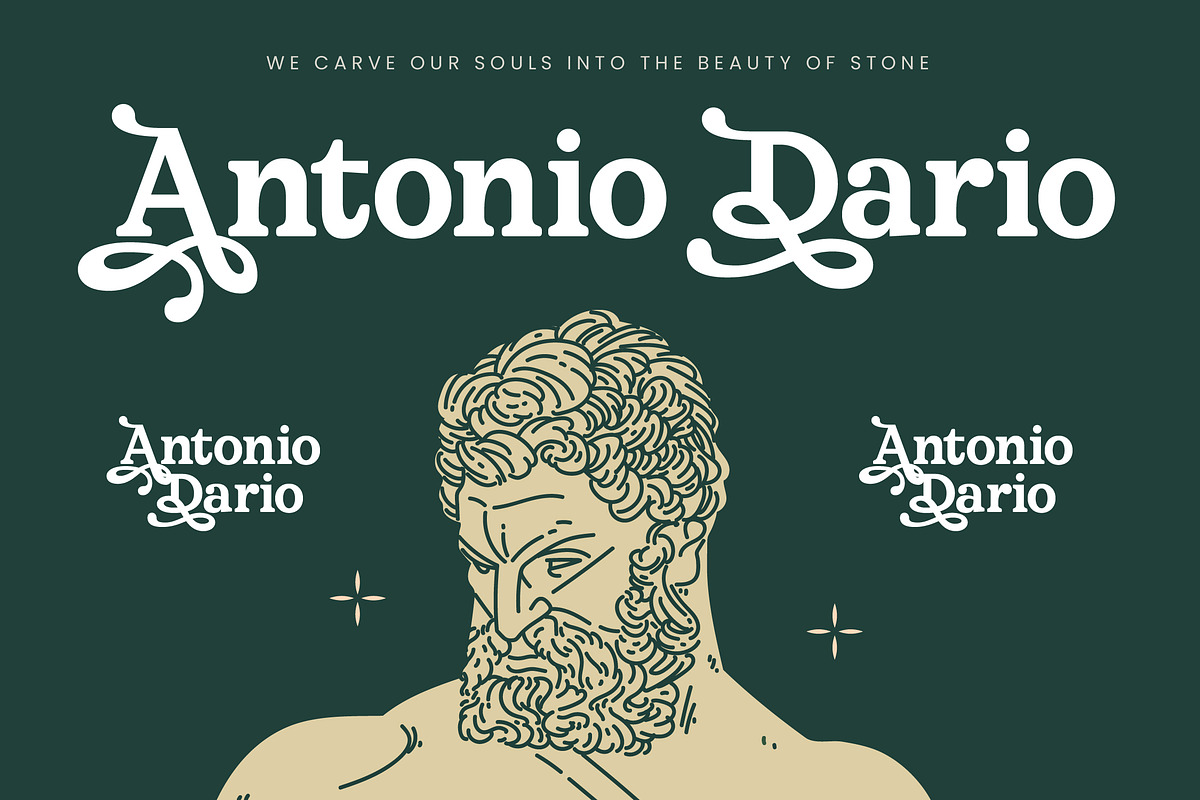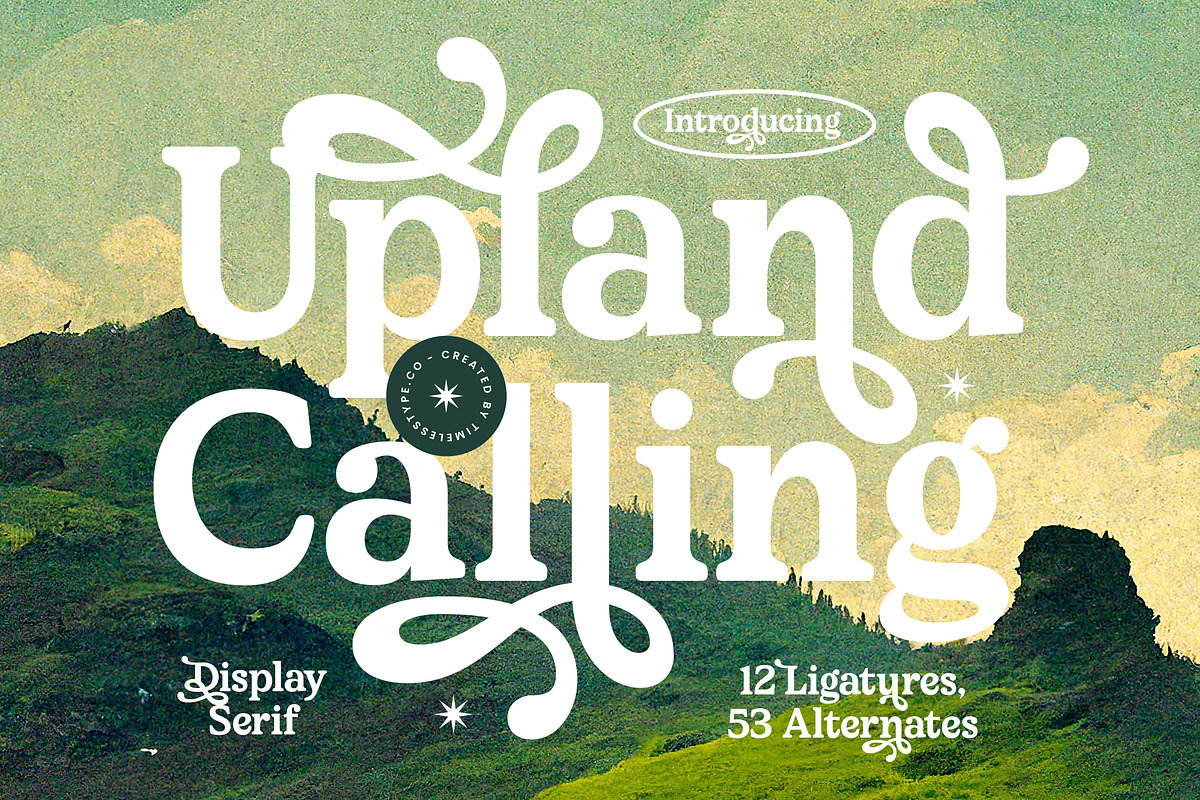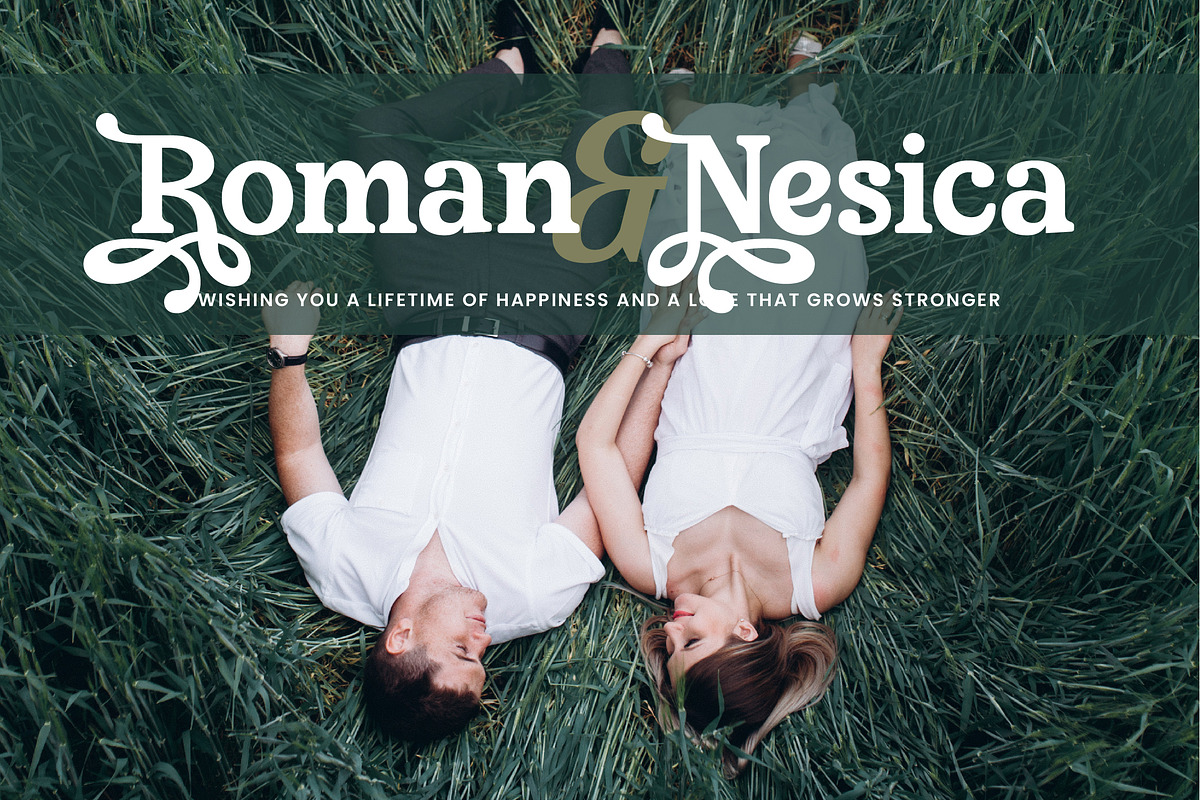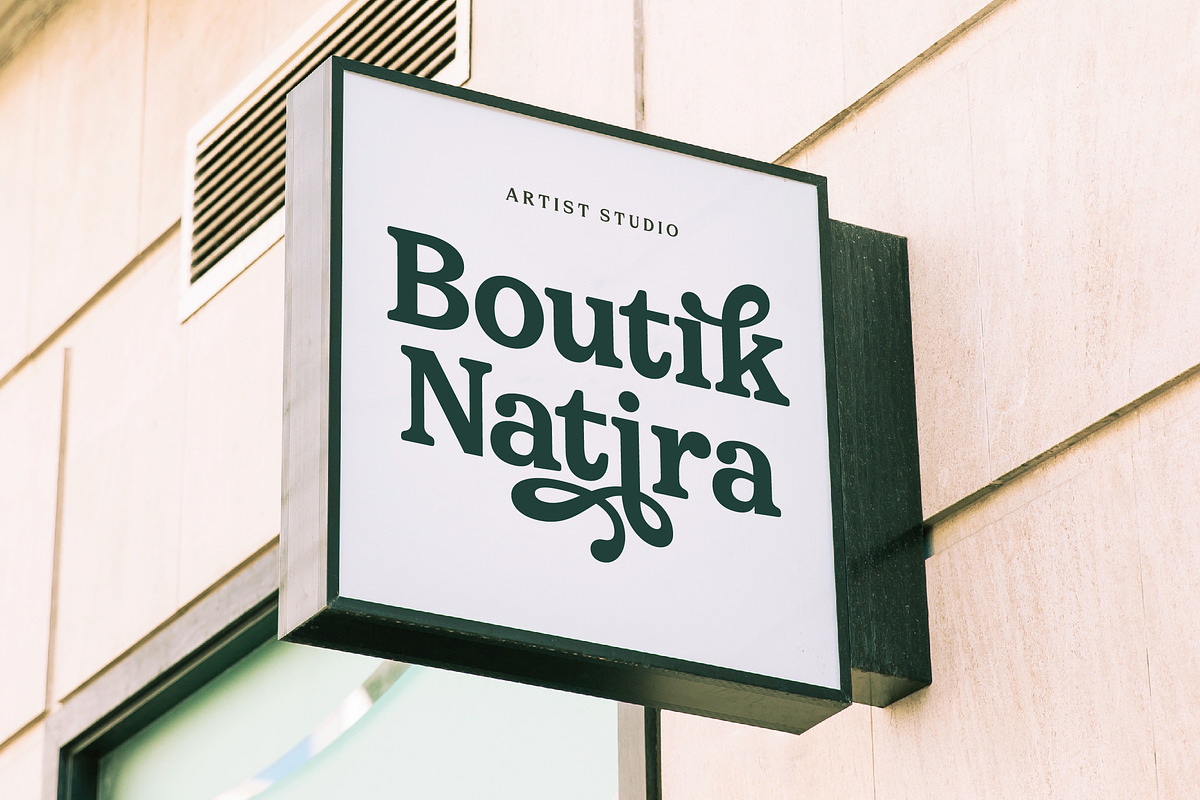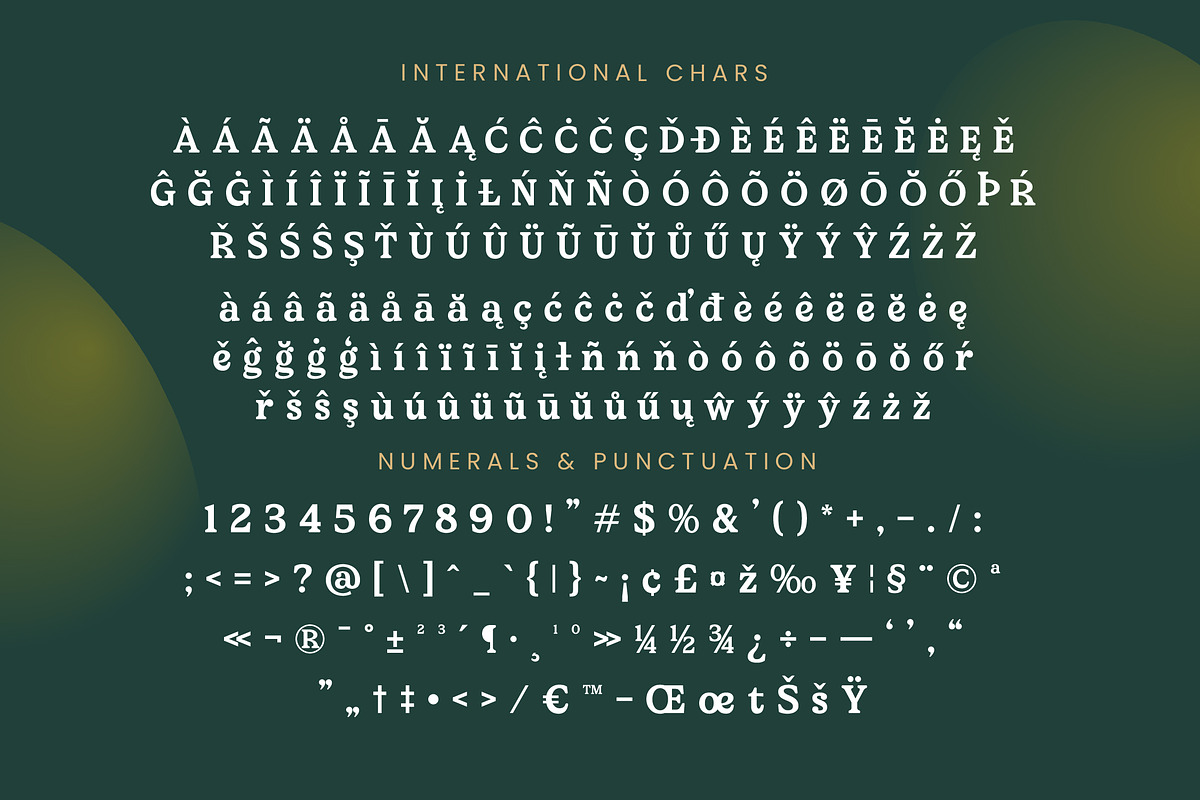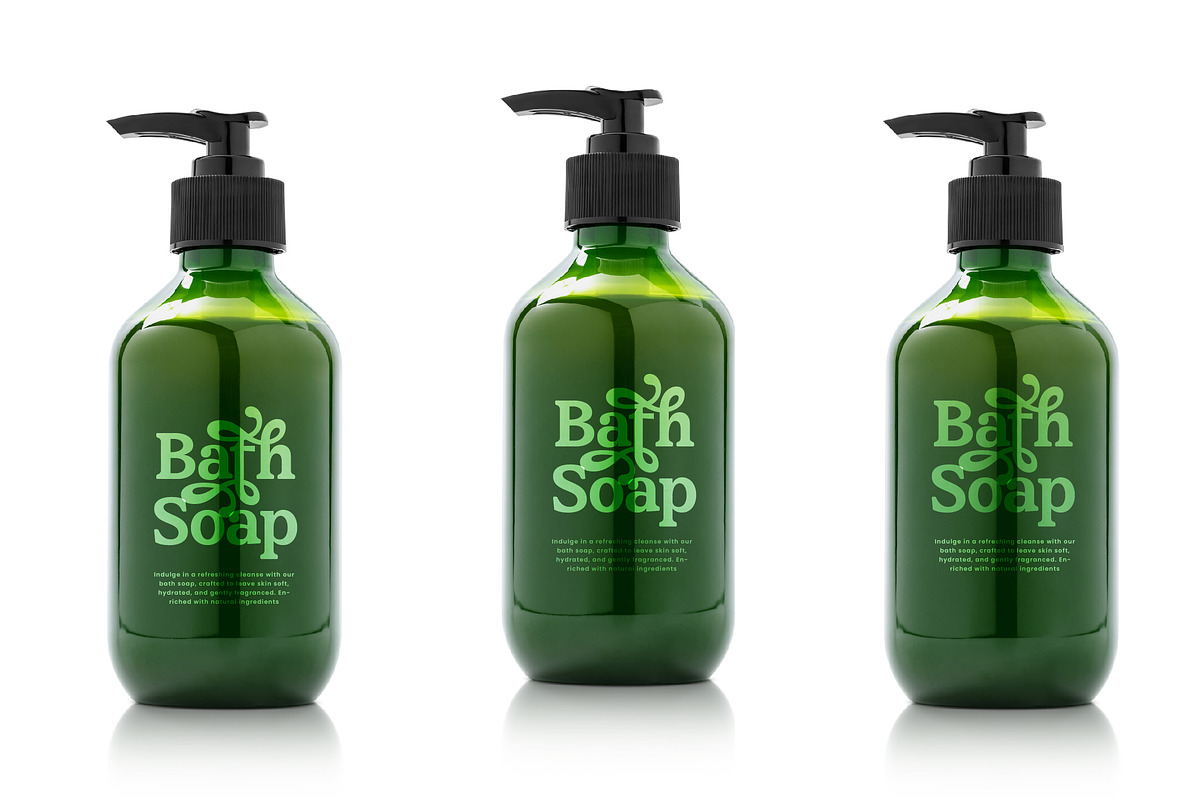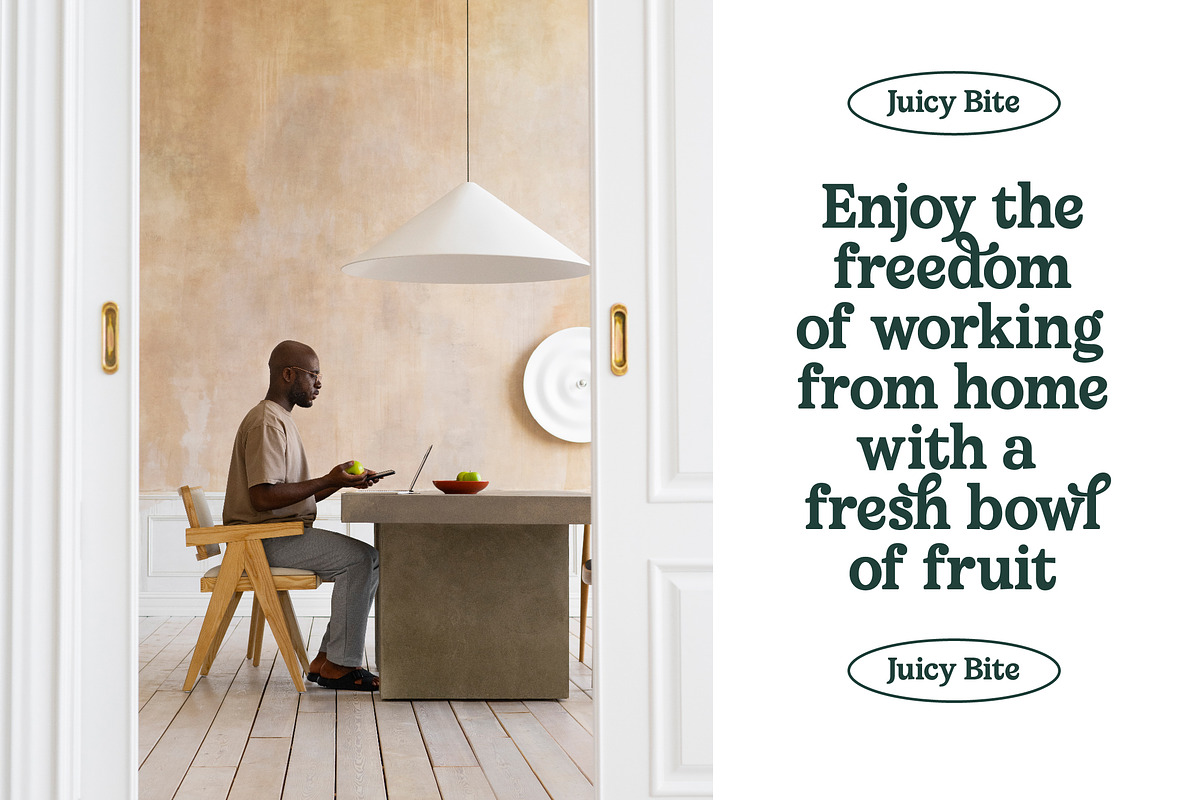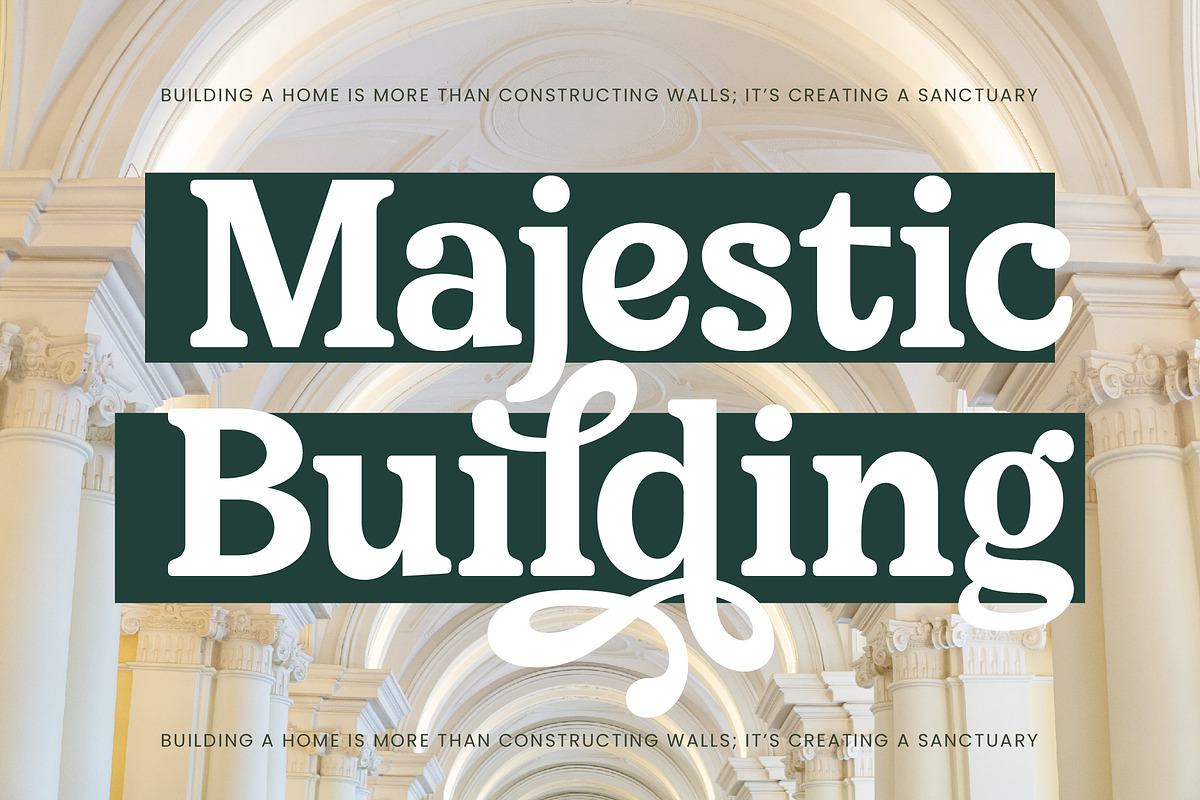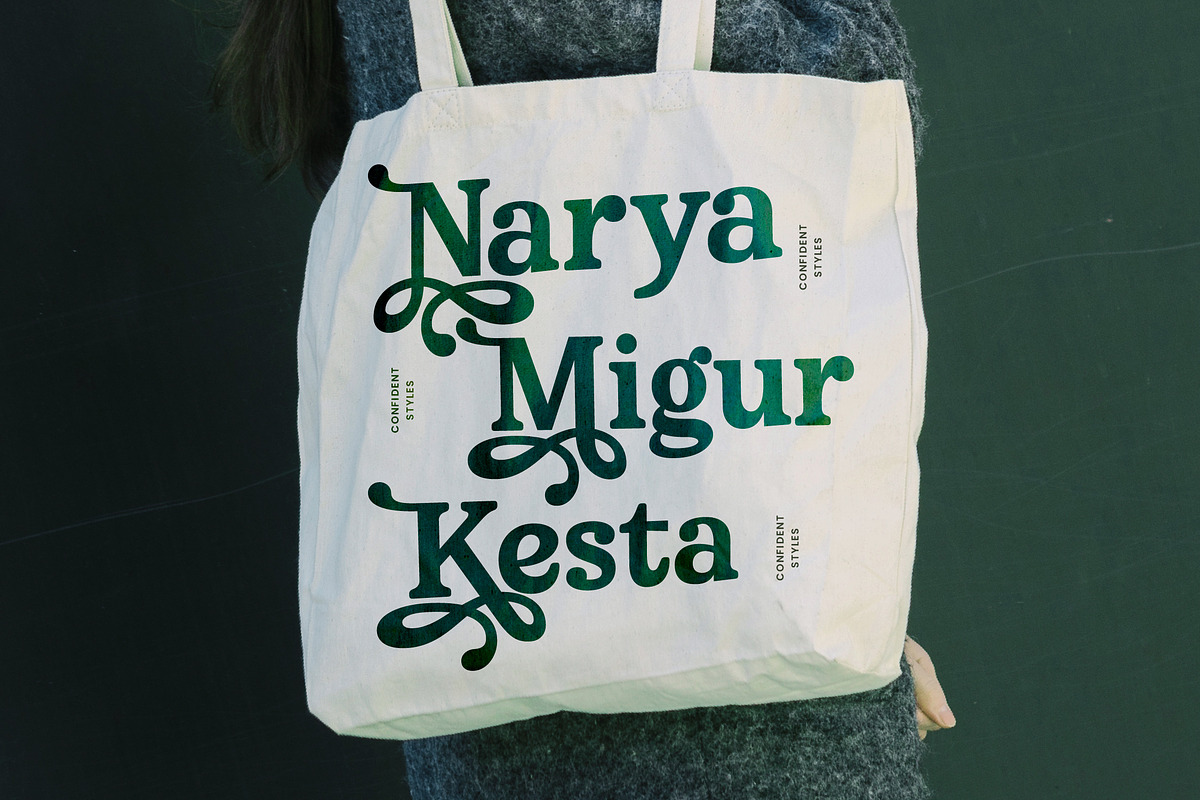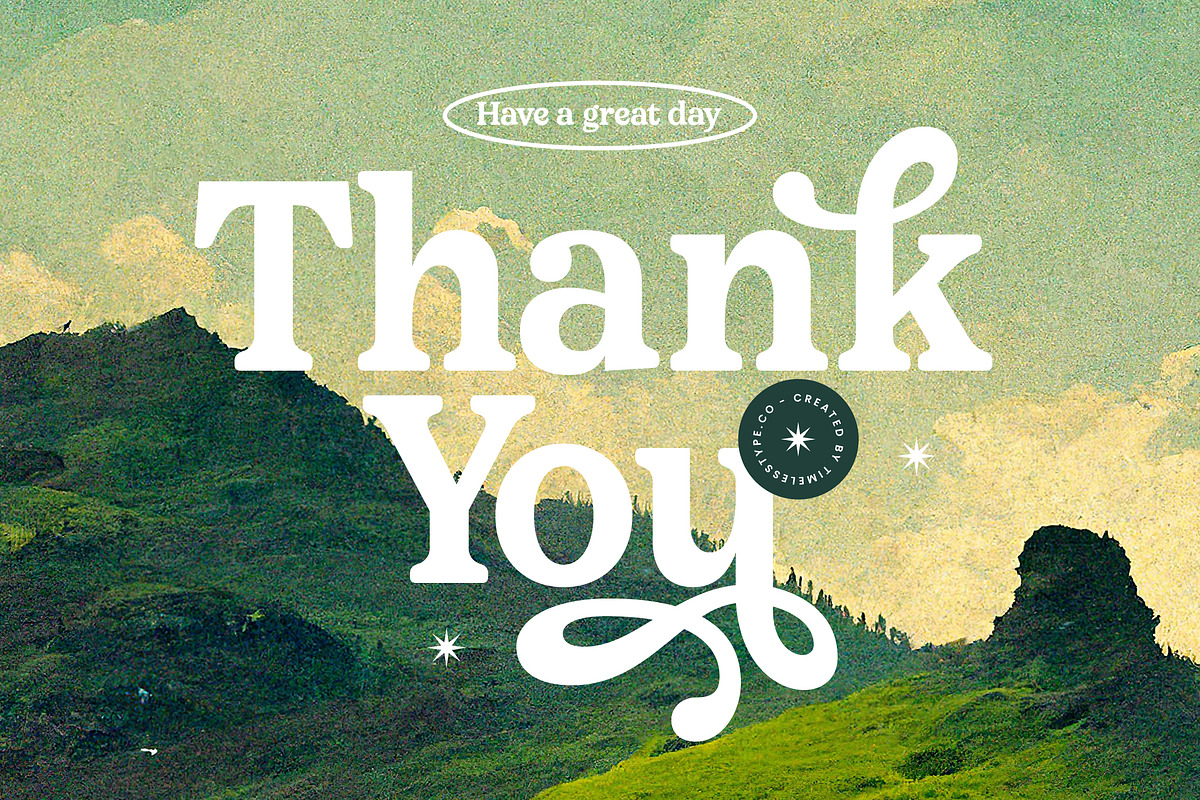
Upland Calling Display Serif
Step into a world where nature meets elegance with Upland Calling, a font that whispers stories of sun-drenched peaks and timeless craftsmanship. This typeface captures the essence of a serene escape, blending organic flow with sophisticated structure to elevate any creative vision.
Inspired by the rugged beauty of mountain landscapes and vintage outdoor signage, this font evokes a sense of nostalgic wonder and high-altitude luxury. The design draws from the golden age of travel posters, reimagining classic proportions with a contemporary, artistic twist that feels both grounded and ethereal.
Embrace the power of modern serif display and luxury typography to command attention and instill a sense of heritage in your projects. With its high-contrast serif strokes and intentional curves, this editorial font delivers a profound branding impact that resonates with audiences seeking authenticity and style.
As the modern serif trend continues to dominate the creative landscape, this typeface stands out as a premier choice for character-driven typography. It perfectly aligns with the current shift toward editorial display fonts that prioritize personality and bespoke aesthetics over generic minimalism.
From high-end logo design and comprehensive branding systems to evocative editorial layouts, this versatile face thrives in diverse environments. It is an ideal companion for luxury packaging, romantic wedding stationery, and avant-garde fashion spreads that require a touch of handcrafted sophistication.
This comprehensive package includes over 50 alternates and unique ligatures to help you customize every word, along with elegant swashes for a truly custom feel. Full multilingual support and international characters ensure your message translates beautifully across global boundaries and various design mediums.
- Ligature 12 Alternate 53